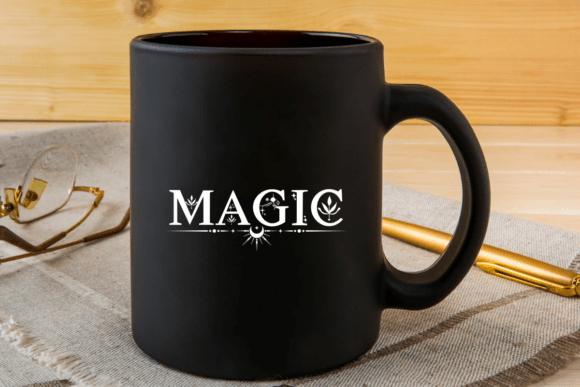
Floral Magic Font
Immerse yourself in the enchanting aesthetic appeal offered by Floral Magic. Specifically crafted as a stunning decorative font, Floral Magic invites creativity and adds a touch of whimsy to your everyday jottings and notes. Whether flipping through the precious pages of your diary or crafting heartfelt messages on greeting cards, this divergent font style breathes life into every written word.Step beyond conventional boundaries! Floral Magic is versatile enough for a variety of design explorations, making it perfect for bedecking banners, enhancing content and social media posts with an artistic flair. Its captivating allure can transform the mundane – be it mugs, cards, shirts or stationery – into pieces that express individuality and artistic innovation. Immerse in the magical realm of lettering brought to life by Floral Magic.